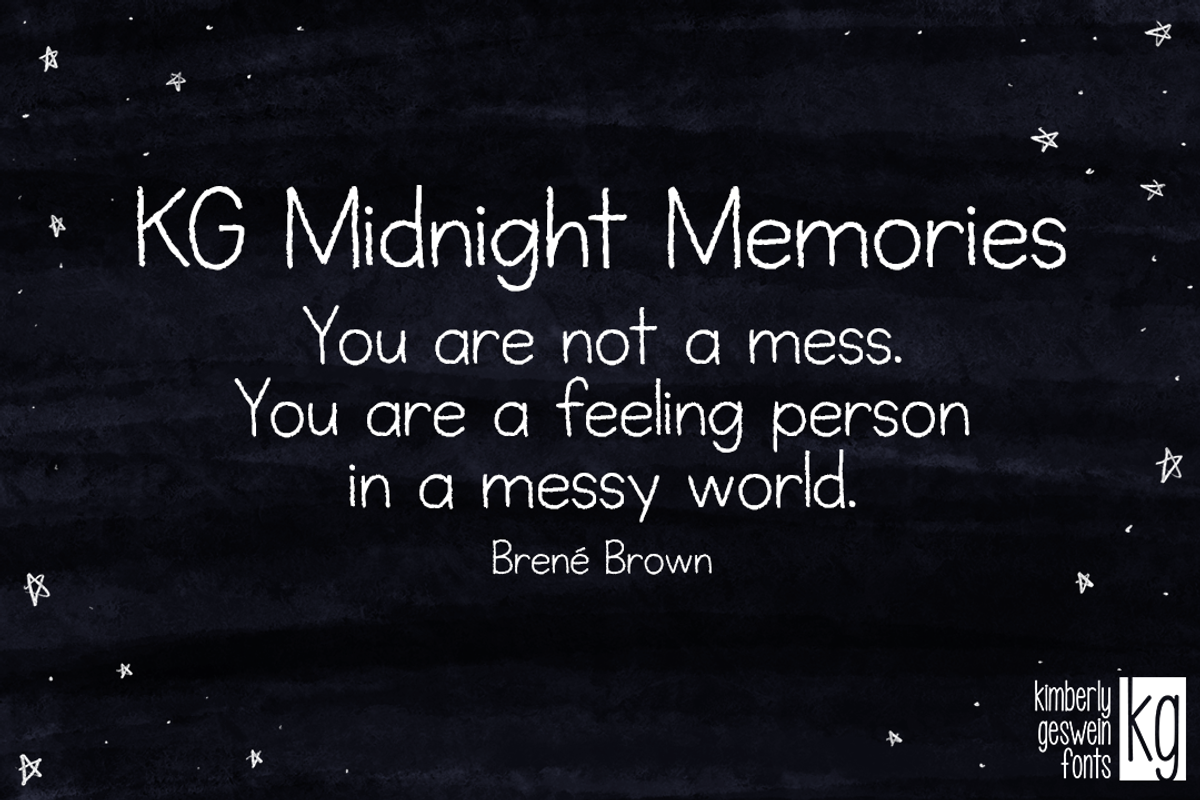
KG Midnight Memories Font Free Download is a soft, dreamy handwritten typeface full of charm and emotional appeal. With its casual flow and subtle curves, this font is perfect for memory books, inspirational quotes, romantic stationery, classroom projects, and lifestyle branding. It feels personal, heartfelt, and beautifully imperfect—like something written straight from the heart.
Ideal for both digital and print designs, KG Midnight Memories balances readability with a unique handwritten flair. Whether you’re designing for education, crafts, or heartfelt messaging, this font brings warmth and sincerity to every word.